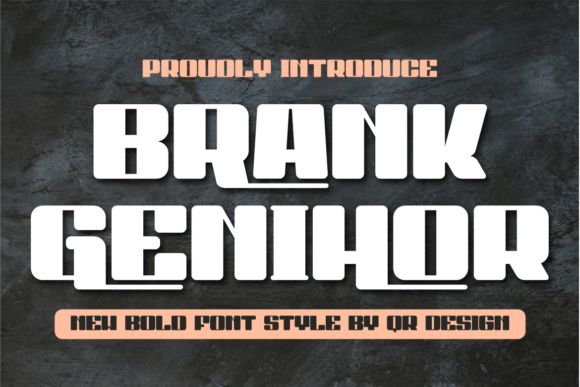
The Perfect Font for Your Next Big Project
You know that moment when a new font comes along and just clicks? It’s like the entire design universe has aligned, and you can’t wait to unleash your creativity. For me, that moment arrived when I stumbled upon the Brank Genihor Font. This cool and powerful display font is a game-changer for designers looking to add some serious oomph to their posters, banners, and headlines.
What sets Brank Genihor apart is its versatility and bold personality. Whether you’re working on a high-energy campaign or a sleek, modern branding project, this font is sure to deliver. With its unique style and exceptional readability, Brank Genihor Font is a valuable addition to any designer’s toolkit. Trust me, once you try it, you’ll wonder how you ever managed without it.
Brank Genihor Font Key Features
- Unique Characteristics: The Brank Genihor Font features a unique blend of modern and vintage elements, with a distinctive flair that sets it apart from other sans-serif fonts.
Brank Genihor Font Review
I recently had the chance to work with the Brank Genihor Font, and I must say it’s a unique and interesting addition to any design project. ✨ The font’s modern and sleek aesthetic works well for digital interfaces, making it perfect for websites and mobile apps. The clean lines and geometric shapes give it a futuristic feel that’s hard to resist.
One of the standout features of Brank Genihor is its versatility. It comes in a range of weights and styles, allowing designers to mix and match to create a unique look. ✨ The font also supports a wide range of languages, making it a great choice for international projects.
- ⚠️ The font may not be suitable for print projects, as it can be difficult to read in smaller sizes.
- ⚠️ The font’s futuristic feel may not be to everyone’s taste, and some designers may find it too bold or overwhelming.
- ⚠️ The font’s range of weights and styles can make it overwhelming to choose the perfect combination for a project.
Overall, I’d give the Brank Genihor Font 4 out of 5 stars. While it has some limitations, its unique aesthetic and versatility make it a great choice for digital design projects. With a little experimentation and patience, designers can unlock the full potential of this font and create truly stunning designs.
Tips for Getting the Most Out of Brank Genihor Font
For optimal results, use Brank Genihor Font in combination with bold, clean design elements. This will help create a striking visual impact. Additionally, experiment with different font sizes and styles to create visual hierarchy and emphasis.
Brank Genihor Font is ideal for use in:
– Creative agency logos and branding materials
– Fashion and beauty product labels and packaging
– Artistic and creative projects requiring a unique, elegant font.